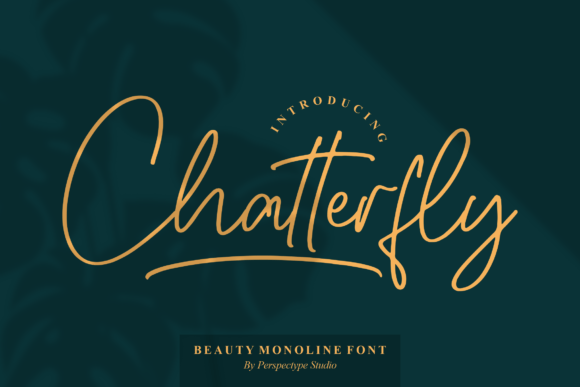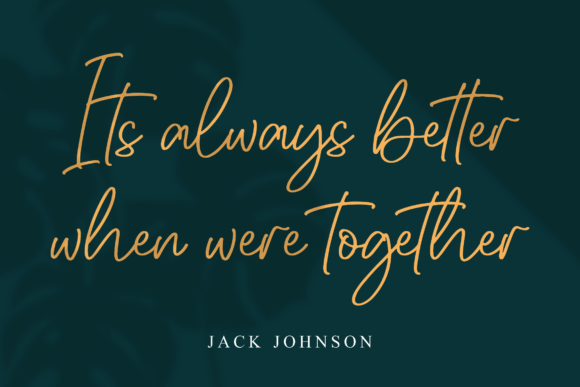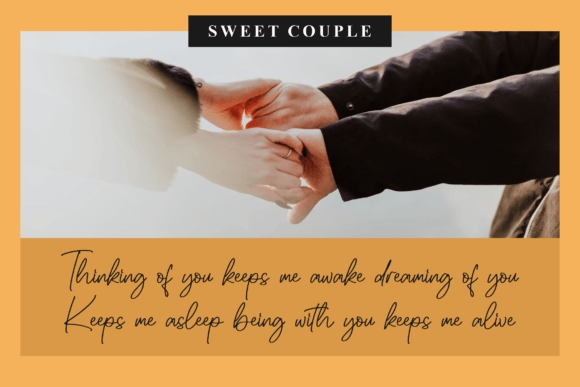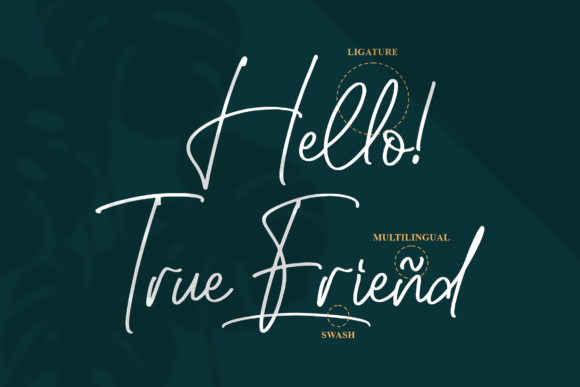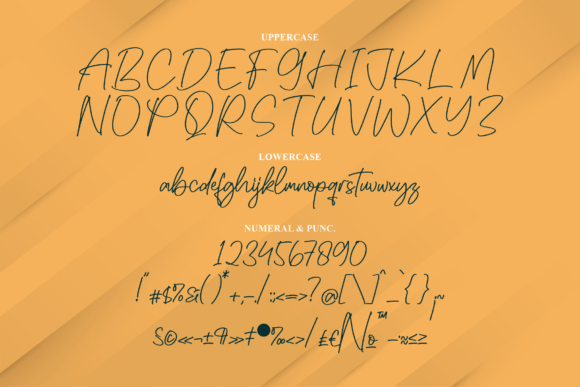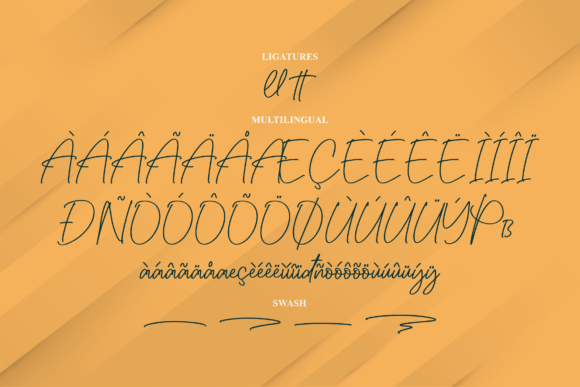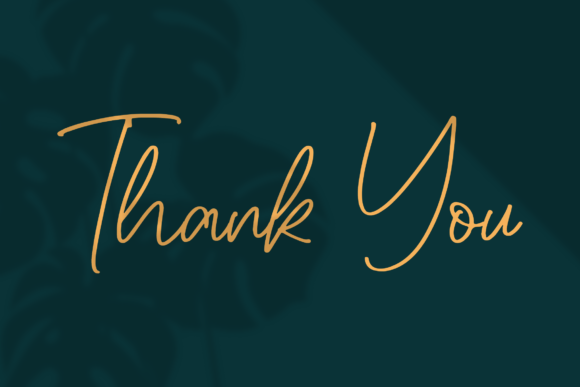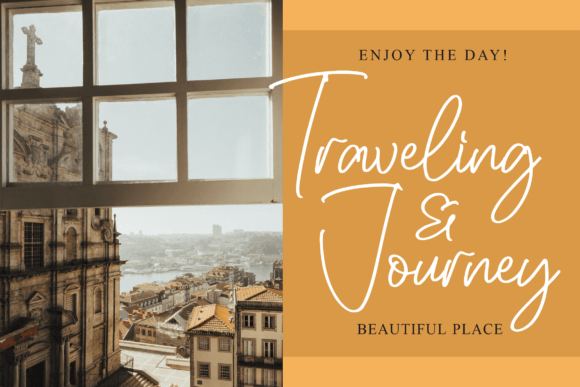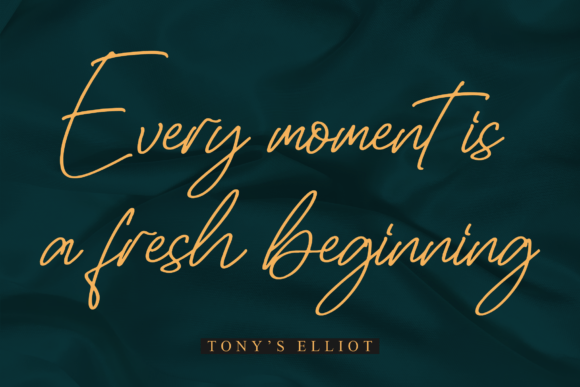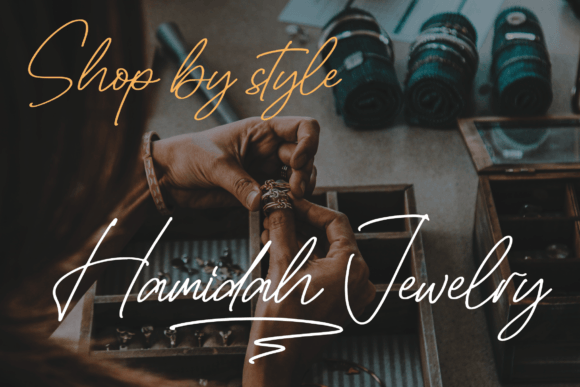
Chatterfly Font
About Chatterfly Font
“Chatterfly” is a beautiful monoline handwritten font that adds a touch of elegance and charm to a wide range of design projects. Its graceful and flowing strokes make it suitable for various applications, including logos, branding projects, homeware designs, product packaging, mugs, quotes, posters, shopping bags, T-shirts, book covers, name cards, invitation cards, greeting cards, labels, photography, watermarks, special events, and more.
The font’s monoline design gives it a contemporary and sophisticated appearance, making it perfect for both formal and casual contexts. Whether you’re creating a minimalist logo, designing stylish homeware products, or crafting eye-catching posters, “Chatterfly” offers a beautiful script touch that adds a sense of warmth and personality to your designs.
One of the standout features of “Chatterfly” is its versatility. Its handwritten charm creates a sense of authenticity, making your designs visually appealing and relatable. The font’s readability ensures that your message is communicated clearly and effectively, enhancing the overall impact of your design.
By incorporating “Chatterfly” into your projects, you’re infusing them with a touch of elegance and creativity. Its monoline style and handwritten flair add a unique and personalized touch, making your designs stand out and leave a lasting impression. Whether you’re a graphic designer, a business owner, or an individual working on personal projects, “Chatterfly” provides you with a beautiful script font to enhance your creative endeavors and create stunning visuals for a wide range of applications.